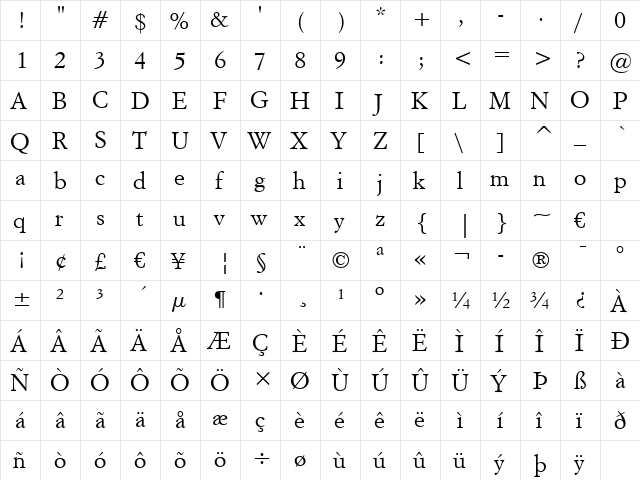
ItalianGarmnd BT Roman
Design Context for ItalianGarmnd BT Typeface
ItalianGarmnd BT offers clean, dependable letterforms without strong stylistic allegiance, making it a practical choice for designers who need flexibility.